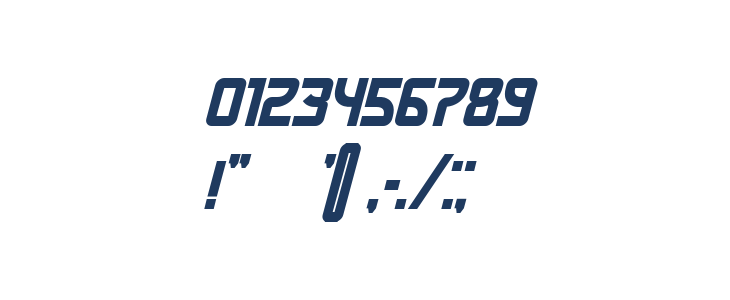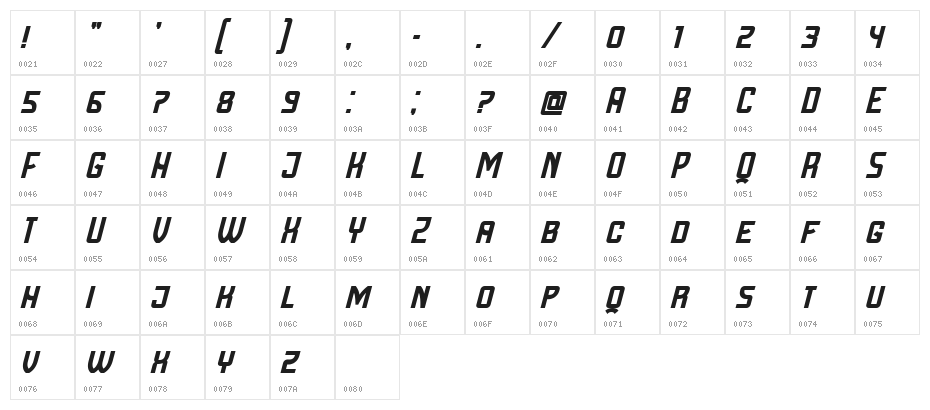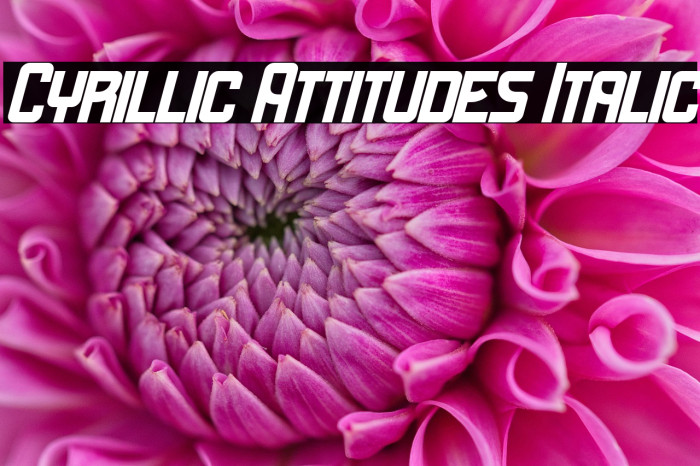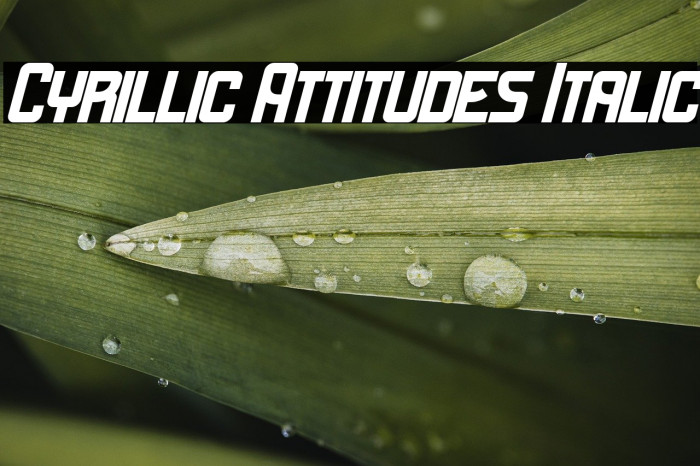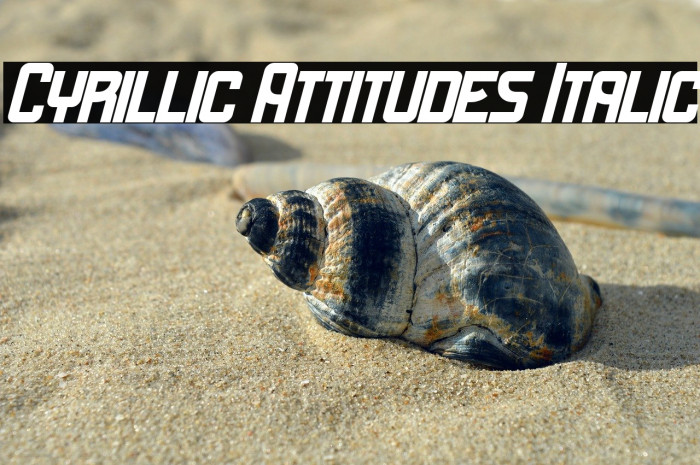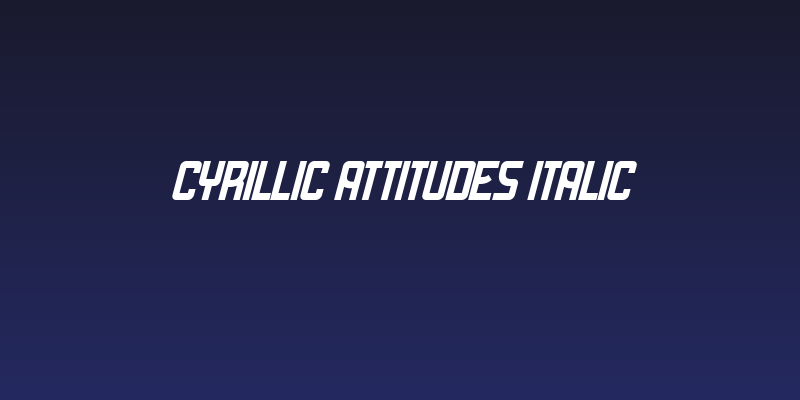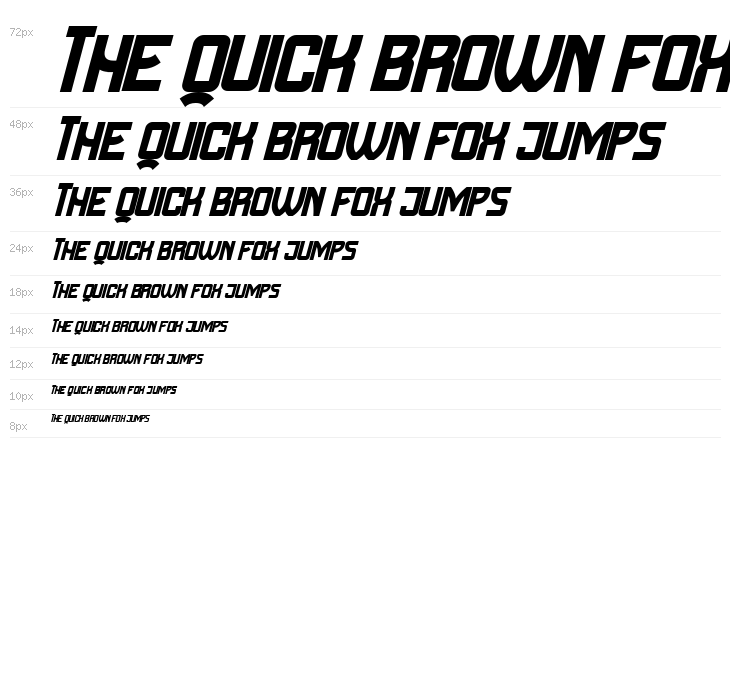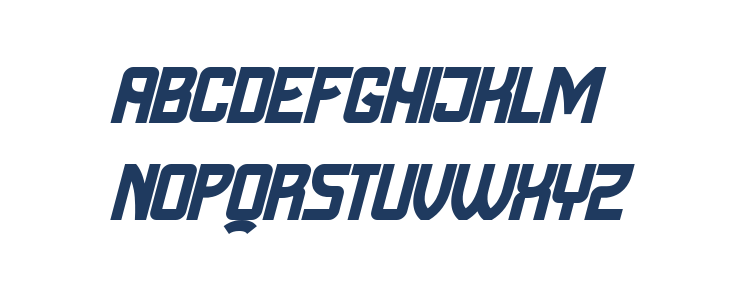
Cyrillic Attitudes Italic Font
Cyrillic Attitudes Italic Description
This font exhibits a bold and dynamic style with a distinct italic slant, giving it a sense of motion and energy. The characters are designed with sharp, angular edges and a consistent stroke width, contributing to a modern and assertive appearance. The uppercase and lowercase letters maintain a uniform height, enhancing readability while preserving the font's unique character. The numerals and special characters are crafted to match the overall aesthetic, ensuring a cohesive look across all text elements. The font's design is suitable for making a strong visual impact, ideal for projects that require a bold statement.
| Proposed Projects | Ideal for sports branding, dynamic posters, modern advertising, and impactful headlines. |